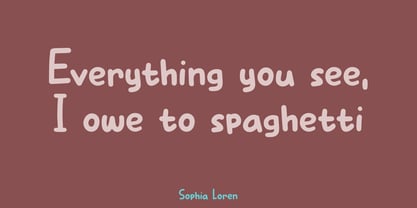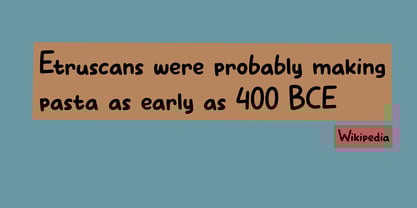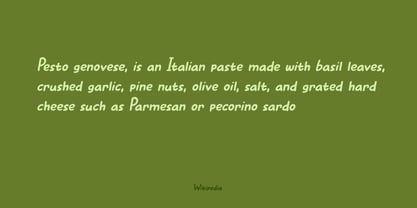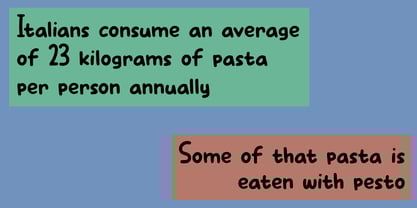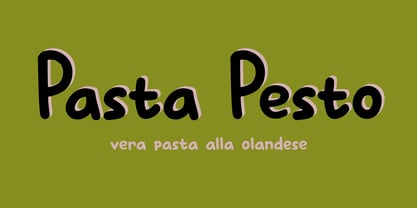
The Pasta Pesto Font Family was designed by David Kerkhoff and published by Kitchen Table Type Foundry. Pasta Pesto contains 2 styles and family package options.
A long time ago, Stephanie, my wife, introduced a dish called Pasta Pesto. It became an instant favourite!
Nowadays we don’t eat it that often, as we have other favourites now, but when we go camping (and we camp out a lot), we make Pasta Pesto on the first night. This is the only time the kids don’t ask: ‘what’s for dinner tonight?’.
Pasta Pesto font is a nice, simple, easy-to-read, display font. It has no hidden agenda, it doesn’t pretend to be flash and important, it just gets the job done.